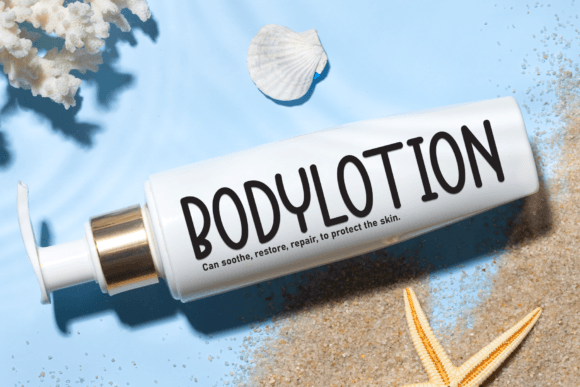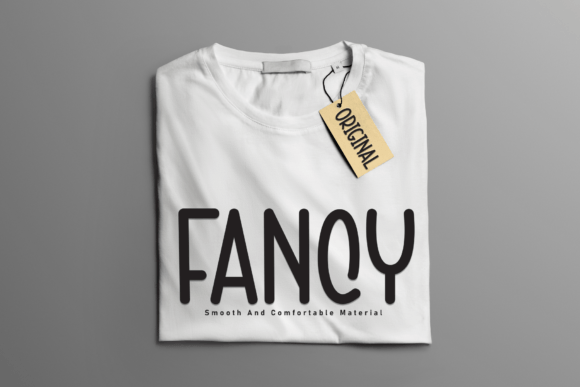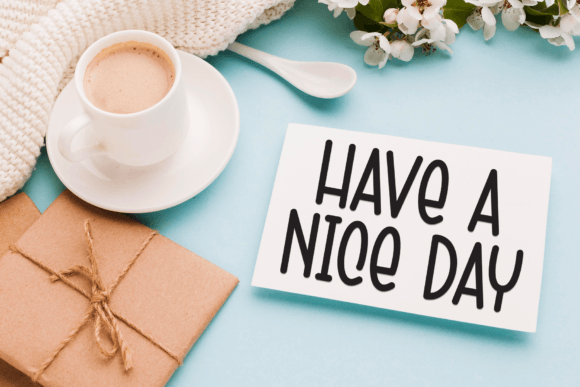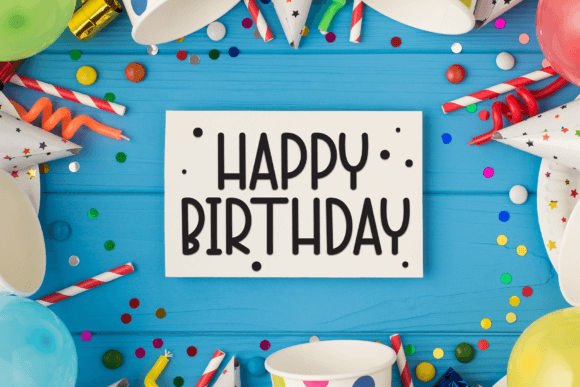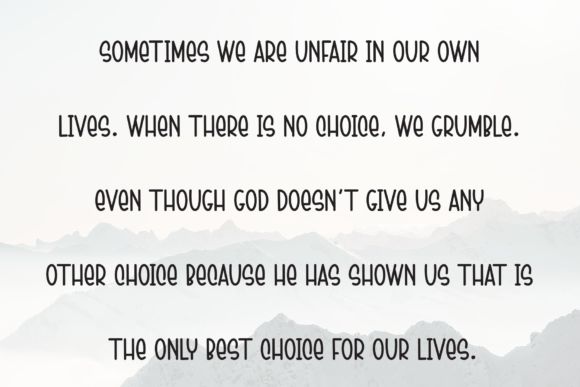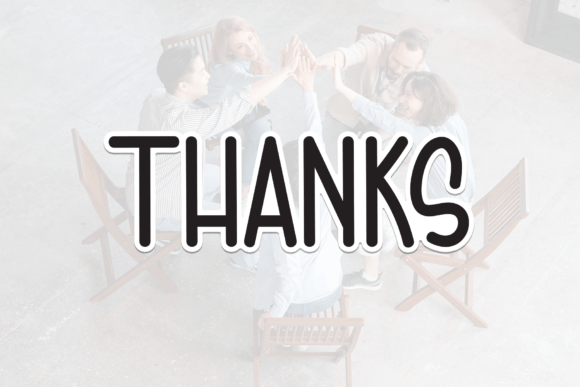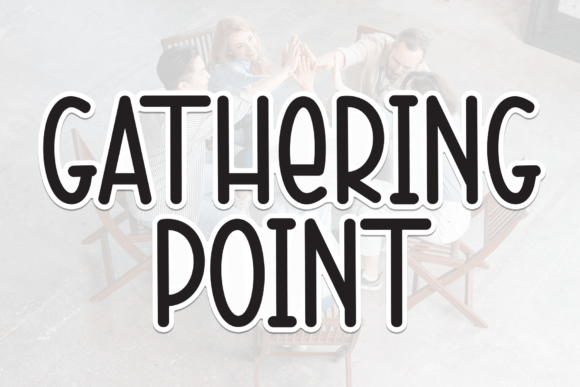
Gathering Point Font: A Timeless Handwritten Font for Stunning Designs
Are you a designer or crafter looking for a font that can add a touch of elegance and sophistication to your designs? Look no further than the Gathering Point Font. This lovely and timeless handwritten font is perfect for creating eye-catching logos, branding, and quotes that will leave a lasting impression on your audience.
What Makes Gathering Point Font So Special?
Gathering Point Font is a unique and beautiful font that stands out from the crowd. Every letter has a distinctive and elegant touch that will make your design come alive. The font’s handwritten style gives it a personal and organic feel that is perfect for creating designs that are both modern and timeless.
One of the key features that sets Gathering Point Font apart is its versatility. It can be used for a wide range of design projects, from logos and branding to quotes and social media graphics. The font’s clean and elegant lines make it easy to read and understand, while its unique style adds a touch of personality and flair.
Why Choose Gathering Point Font for Your Designs?
There are many reasons why Gathering Point Font is the perfect choice for designers and crafters. Here are just a few:
- Unique and Beautiful Style: Gathering Point Font has a unique and beautiful style that will make your designs stand out from the crowd.
- Versatile: The font can be used for a wide range of design projects, from logos and branding to quotes and social media graphics.
- Elegant and Sophisticated: The font’s elegant and sophisticated style makes it perfect for creating designs that are both modern and timeless.
- Easy to Read: The font’s clean and elegant lines make it easy to read and understand.
How to Use Gathering Point Font in Your Designs
Using Gathering Point Font in your designs is easy. Here are a few tips to get you started:
- Pair it with Other Fonts: Gathering Point Font pairs well with other fonts, so don’t be afraid to experiment with different combinations.
- Use it for Headlines and Titles: The font’s elegant and sophisticated style makes it perfect for headlines and titles.
- Add a Personal Touch: The font’s handwritten style gives it a personal and organic feel that is perfect for adding a touch of personality to your designs.
Tips and Tricks for Getting the Most Out of Gathering Point Font
Here are a few tips and tricks for getting the most out of Gathering Point Font:
- Experiment with Different Sizes: The font looks great in a variety of sizes, so don’t be afraid to experiment with different sizes to find the one that works best for your design.
- Use it for Quotes and Social Media Graphics: The font’s elegant and sophisticated style makes it perfect for quotes and social media graphics.
- Add a Pop of Color: The font looks great with a pop of color, so don’t be afraid to add a splash of color to your design.